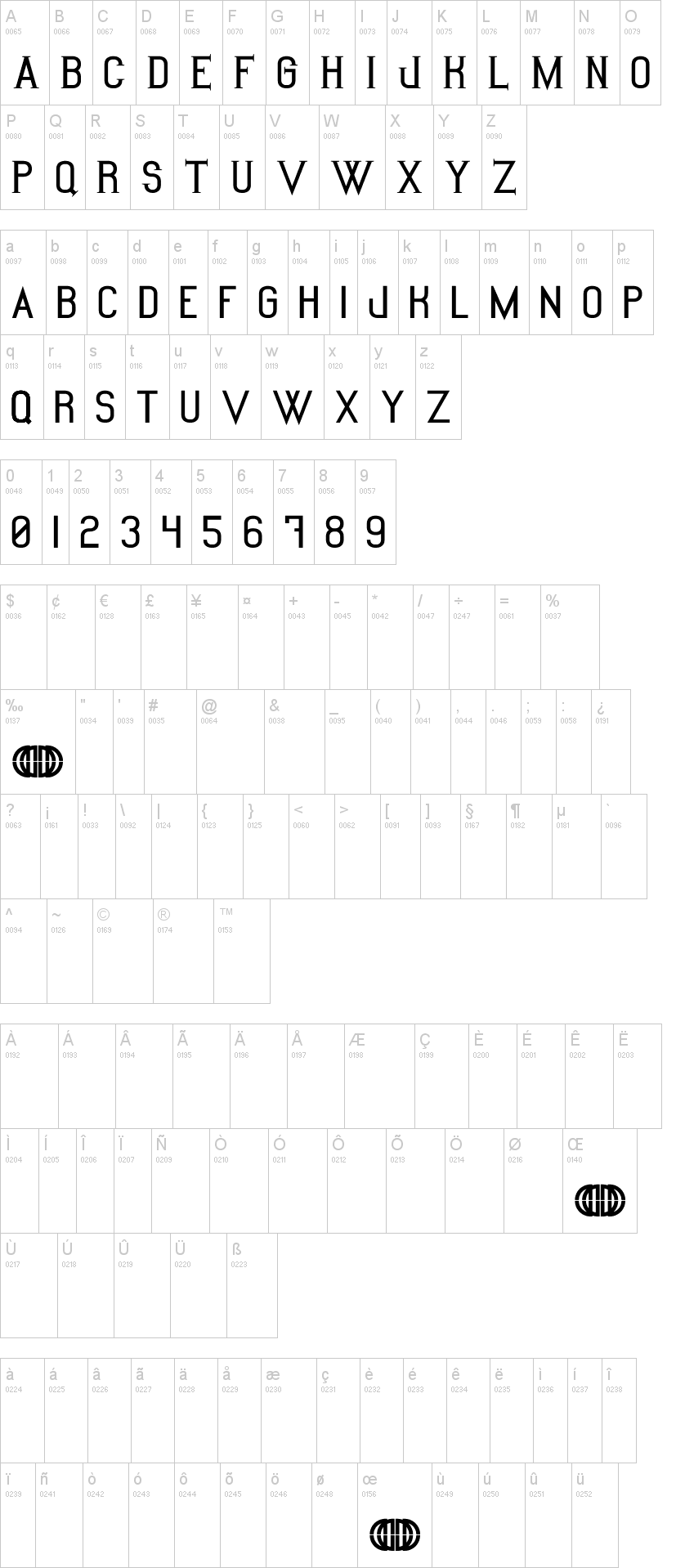
Шрифт Kiona
I had 2 friends that both didn't like their names so they made everyone call them something else, which was both funny and interesting, but could be confusing at times. Also a side note, both of them never met, but they came upon their new names by meeting little girls that they though had vute names. Thus I created this font.
This letter and number set is fun and unique, just like you! (And apparently my friends!) The capitals have serifs, and the lower case set is capital as well but sans serif. Confusing! But fun and interesting at the same time, no? I feel like this font has somewhat of an Asian look to it, and I think it would great in Signage, Ad Copy, and Cartoon Design!
A font that I created to use for a website design. Intended to use for Web Design and Large Ad Copy. Kind of sexy!